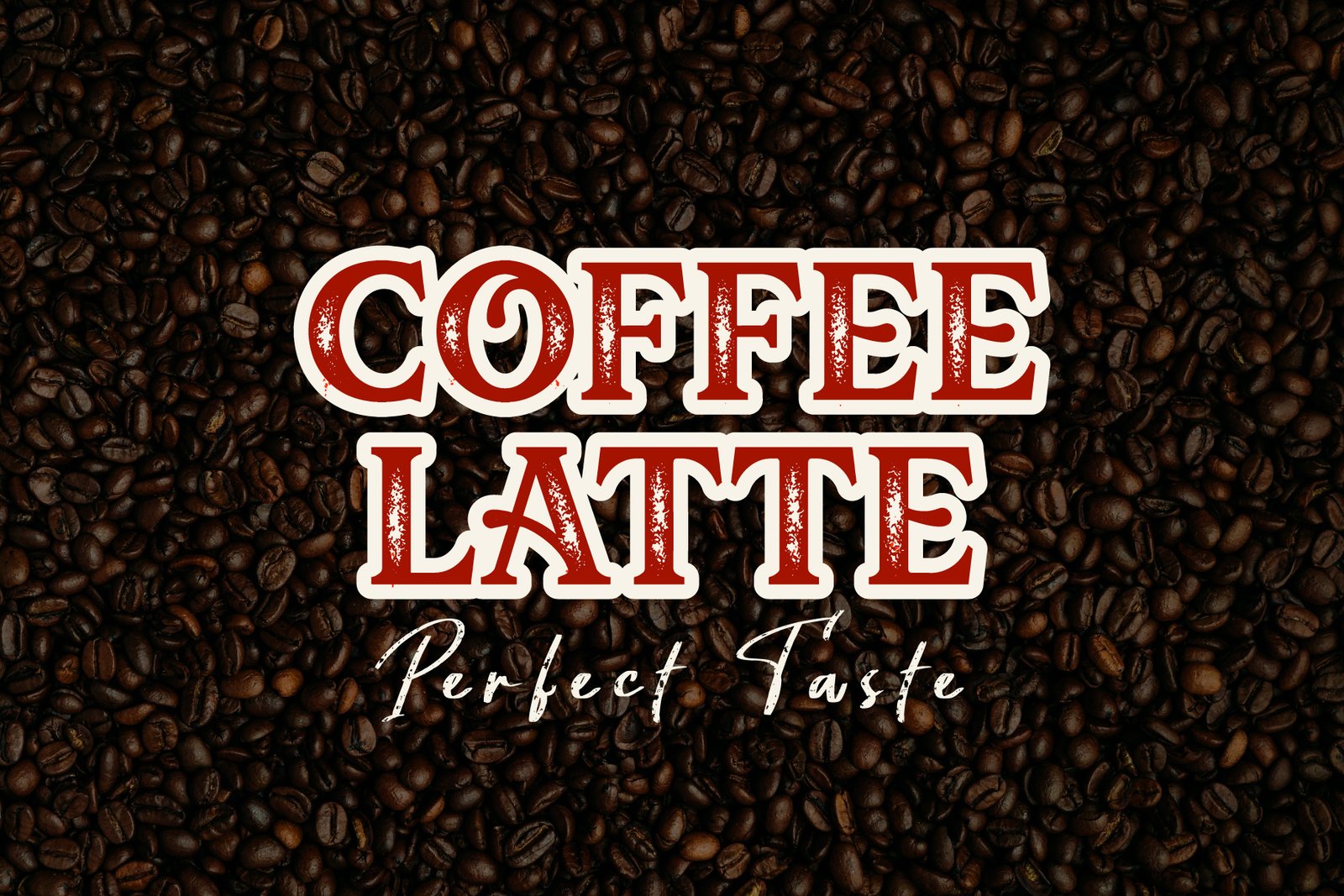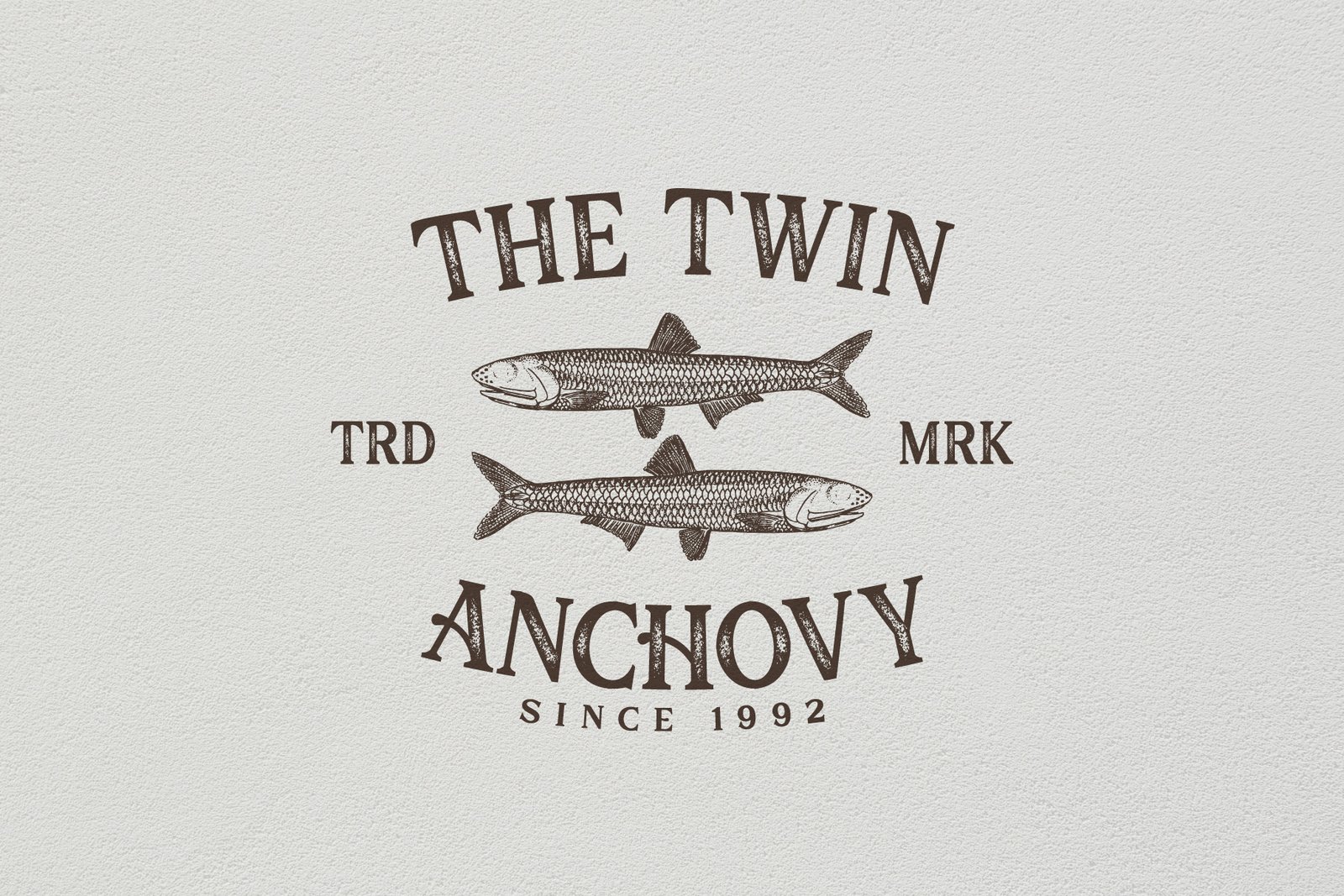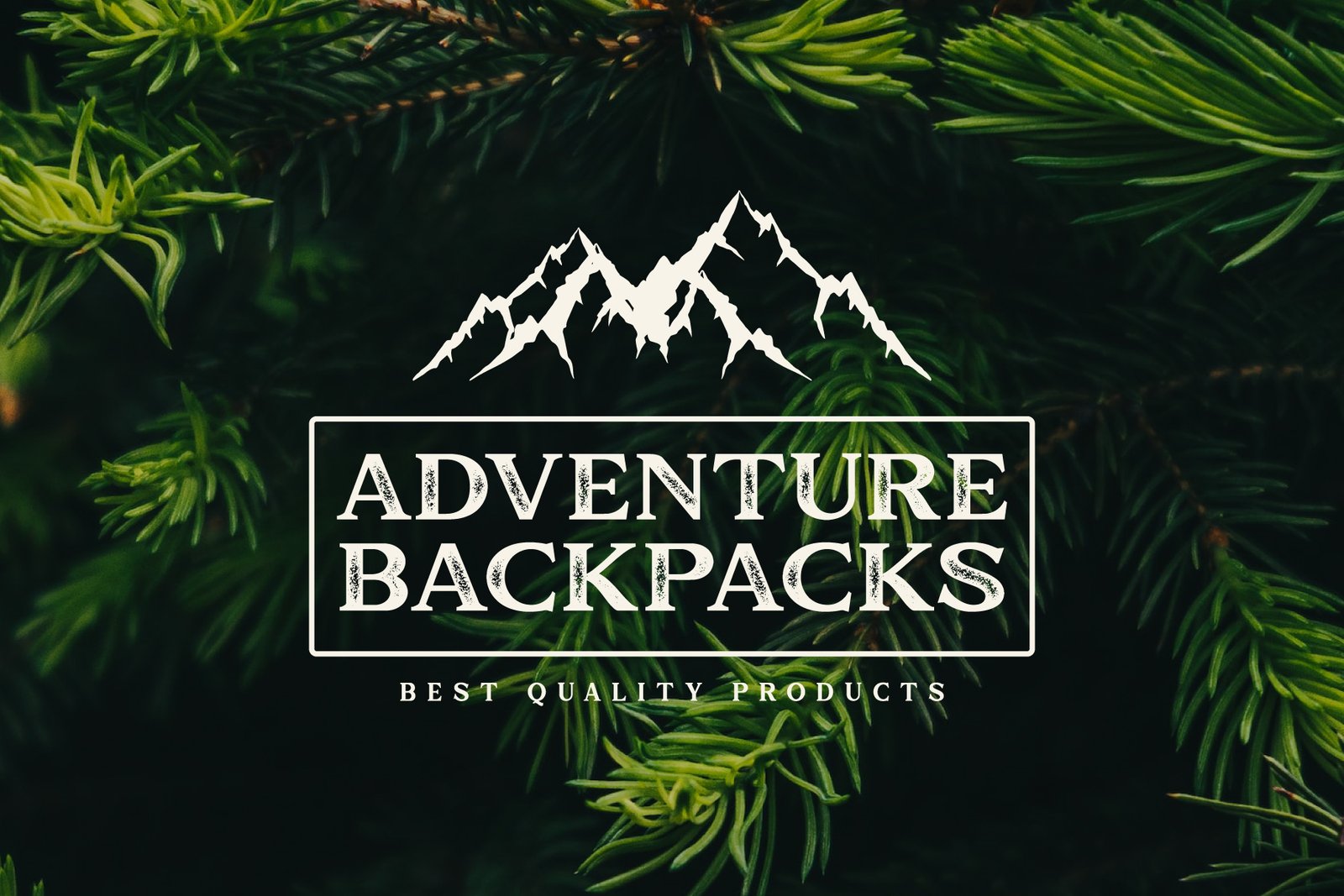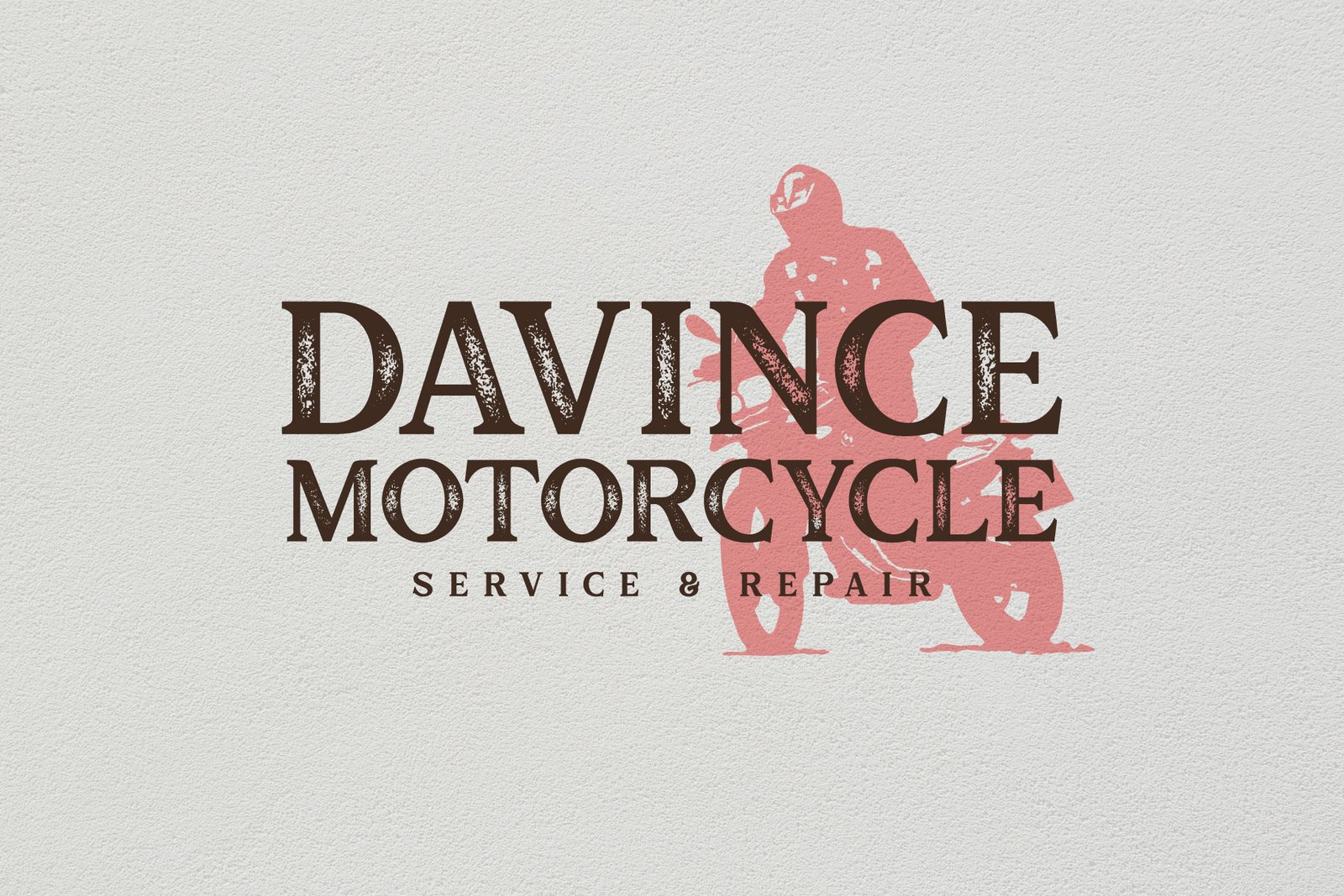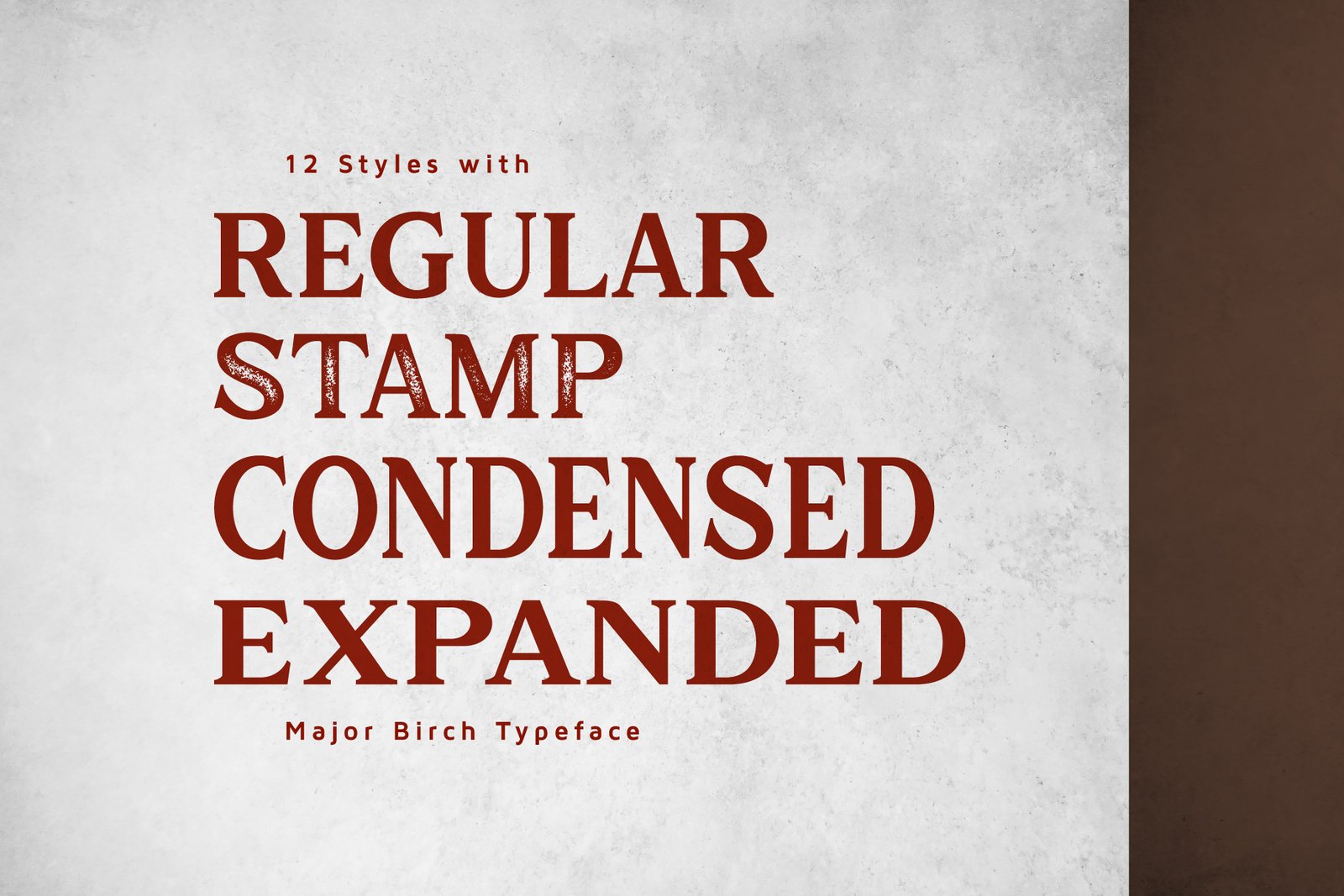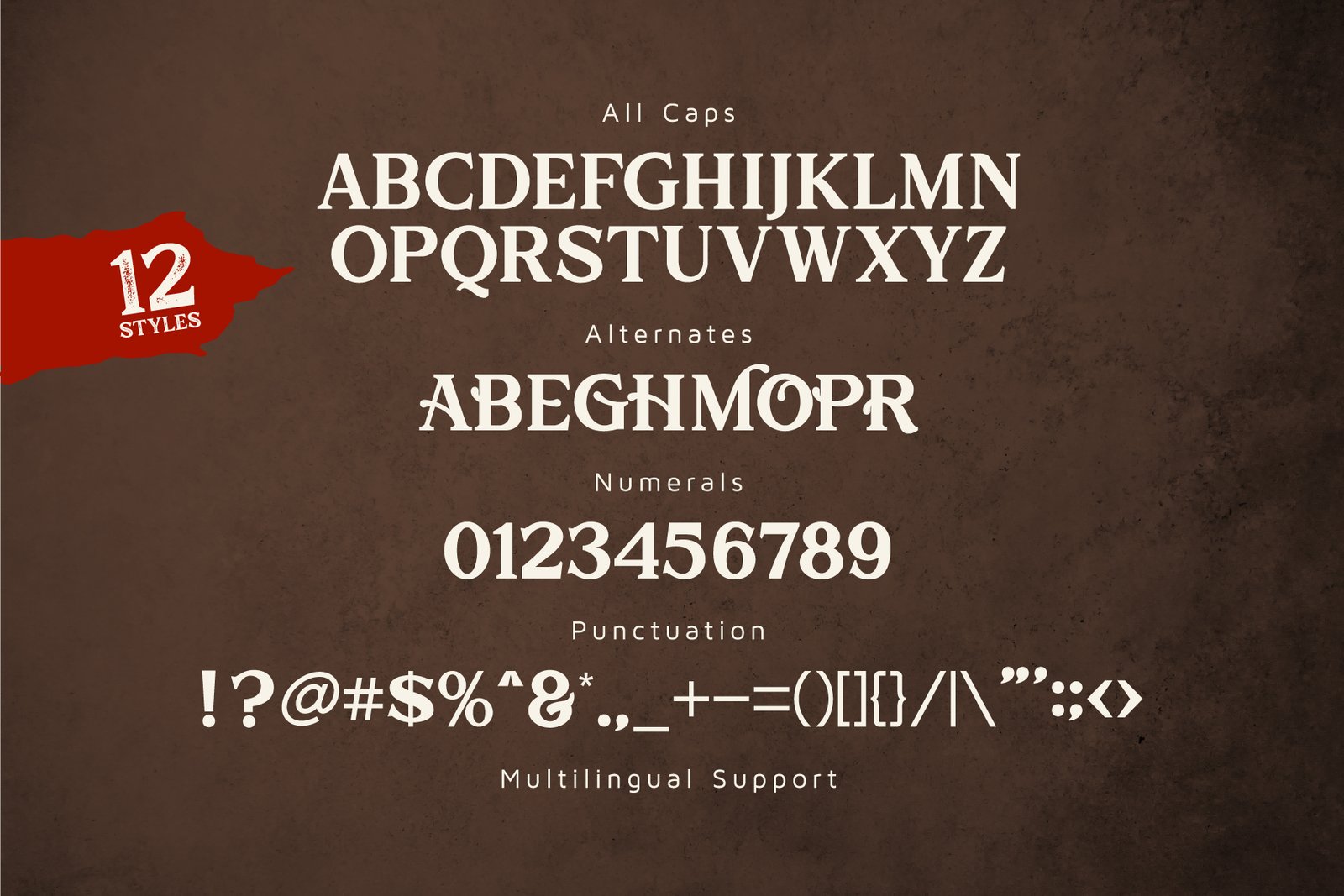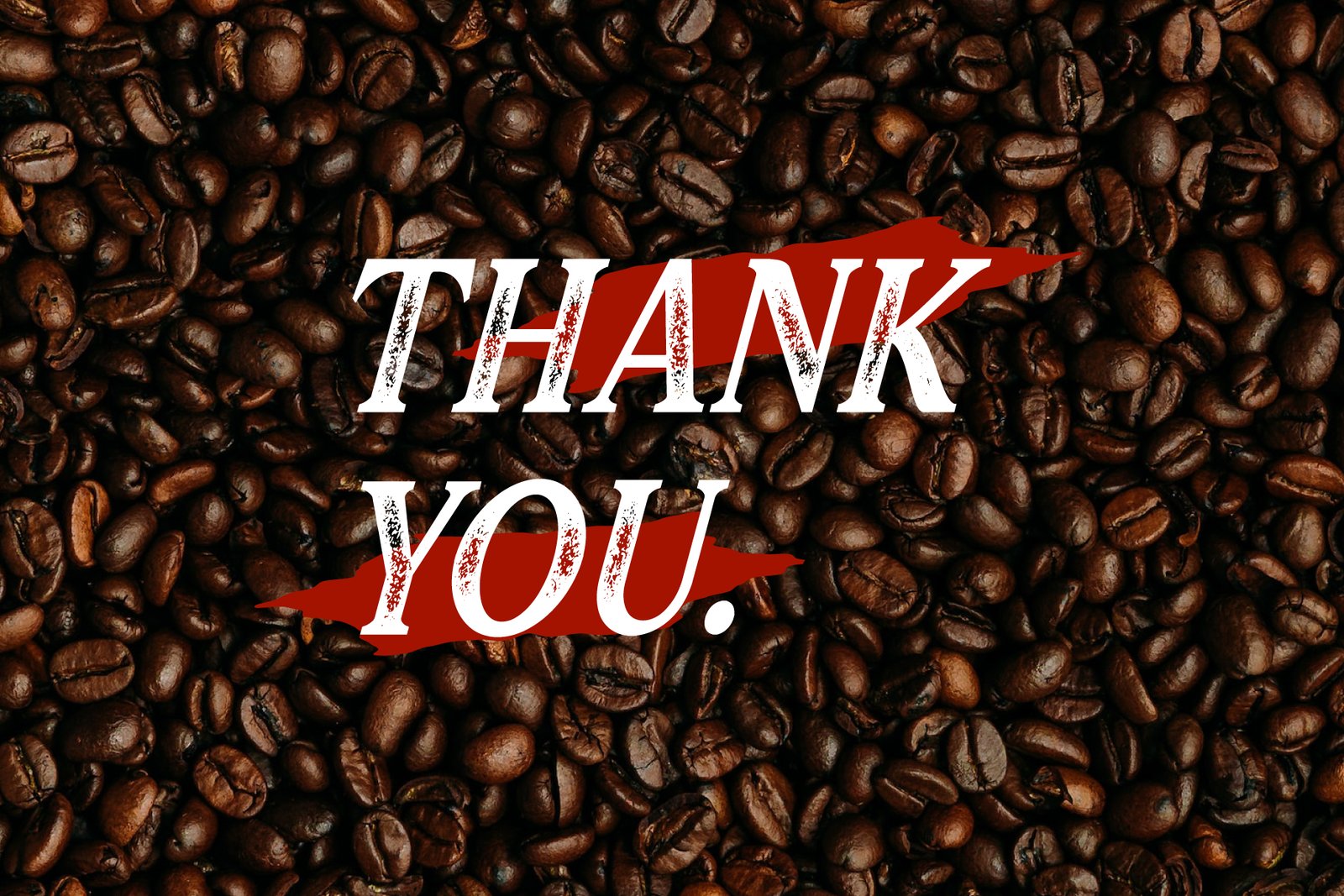
Major Birch – Vintage Logo Font
Major Birch is a classic and modern font whose style never fades, a touch of stamp style can make this font look more naturally vintage. This font is perfect for logos, product labels, posters, or any design that wants a classic touch.
Features:
– 12 Font styles
– Uppercase only ( All caps )
– Alternate characters
– Regular, stamp, condensed, and expanded Version
– Symbol and punctuation
– Multilingual support